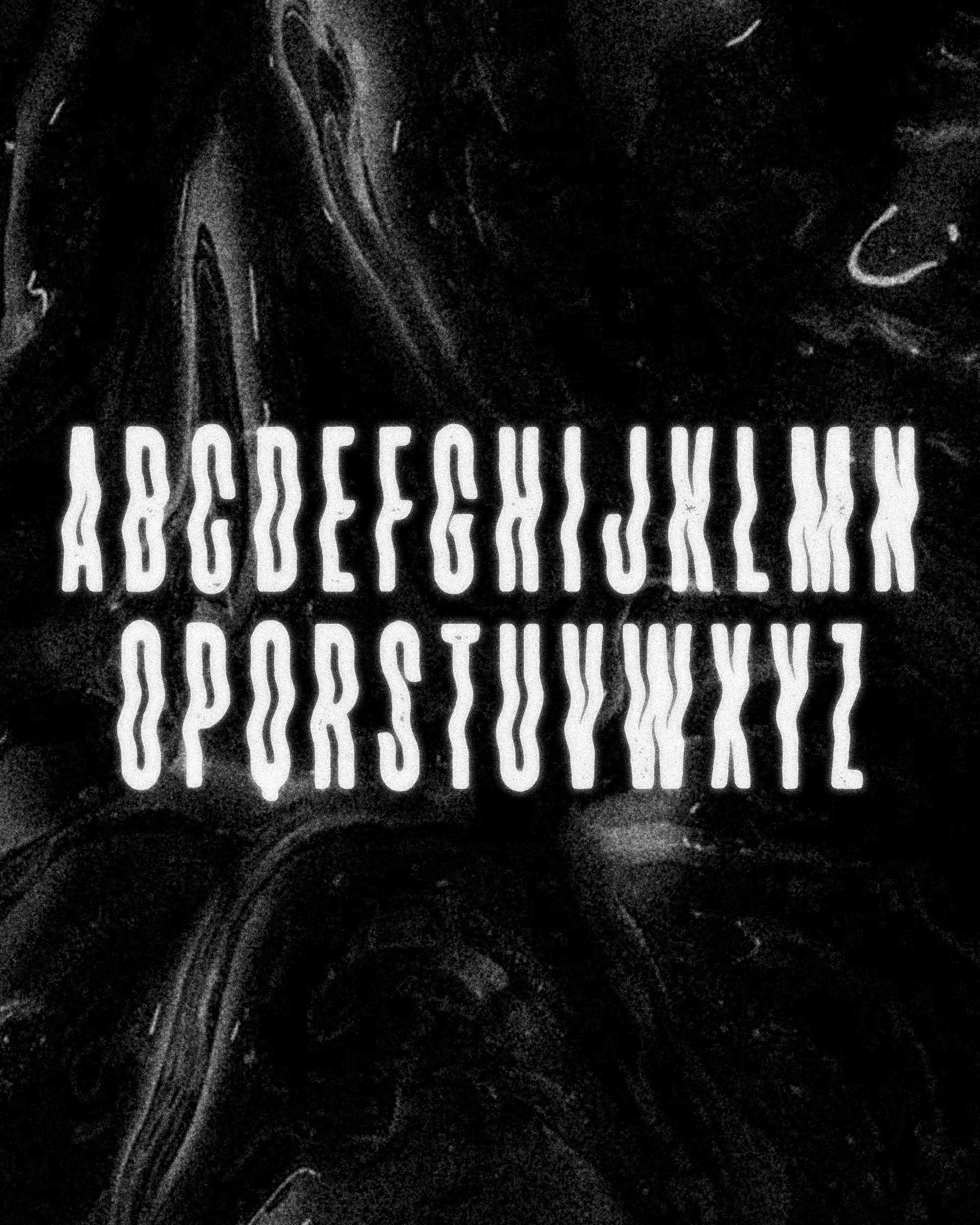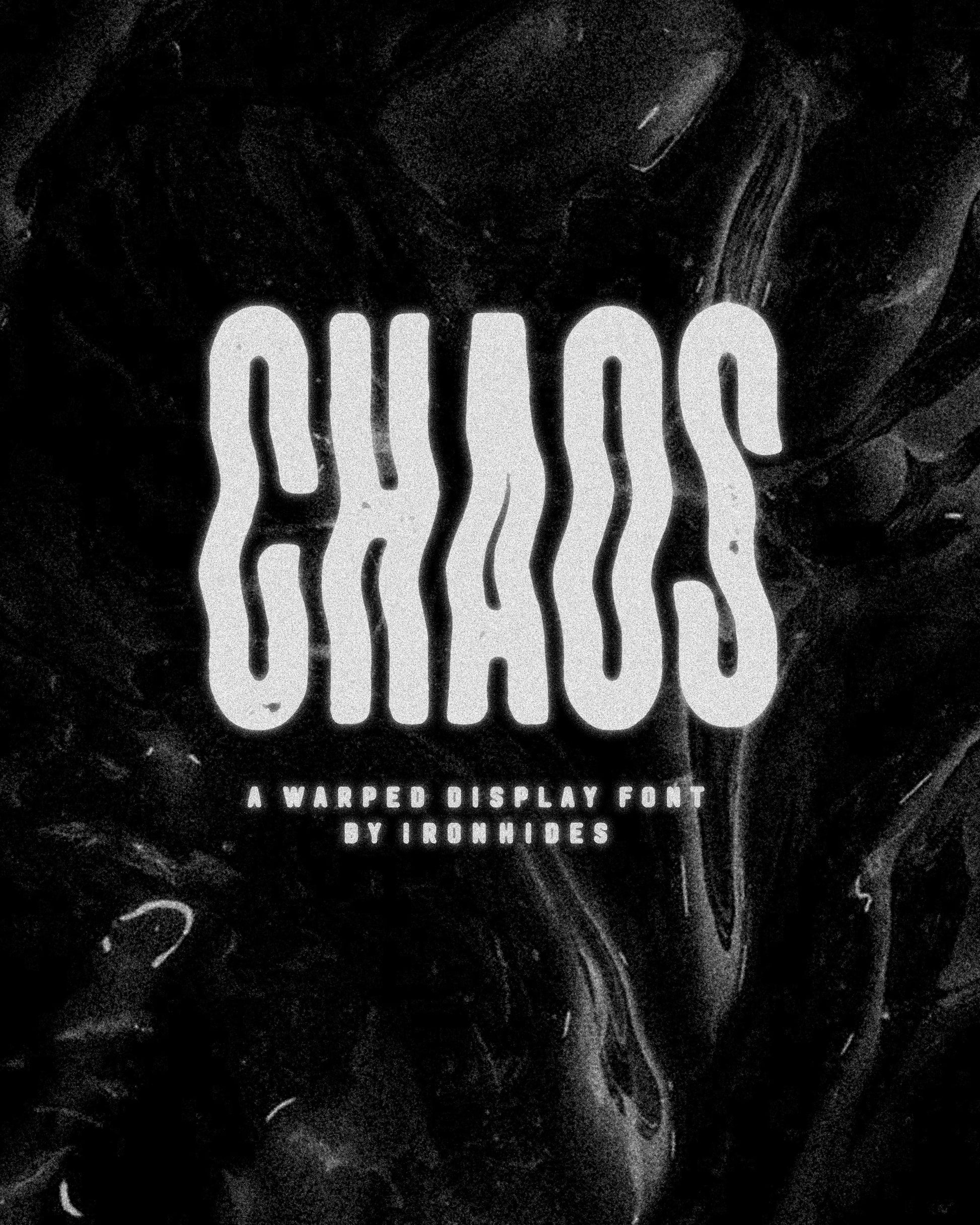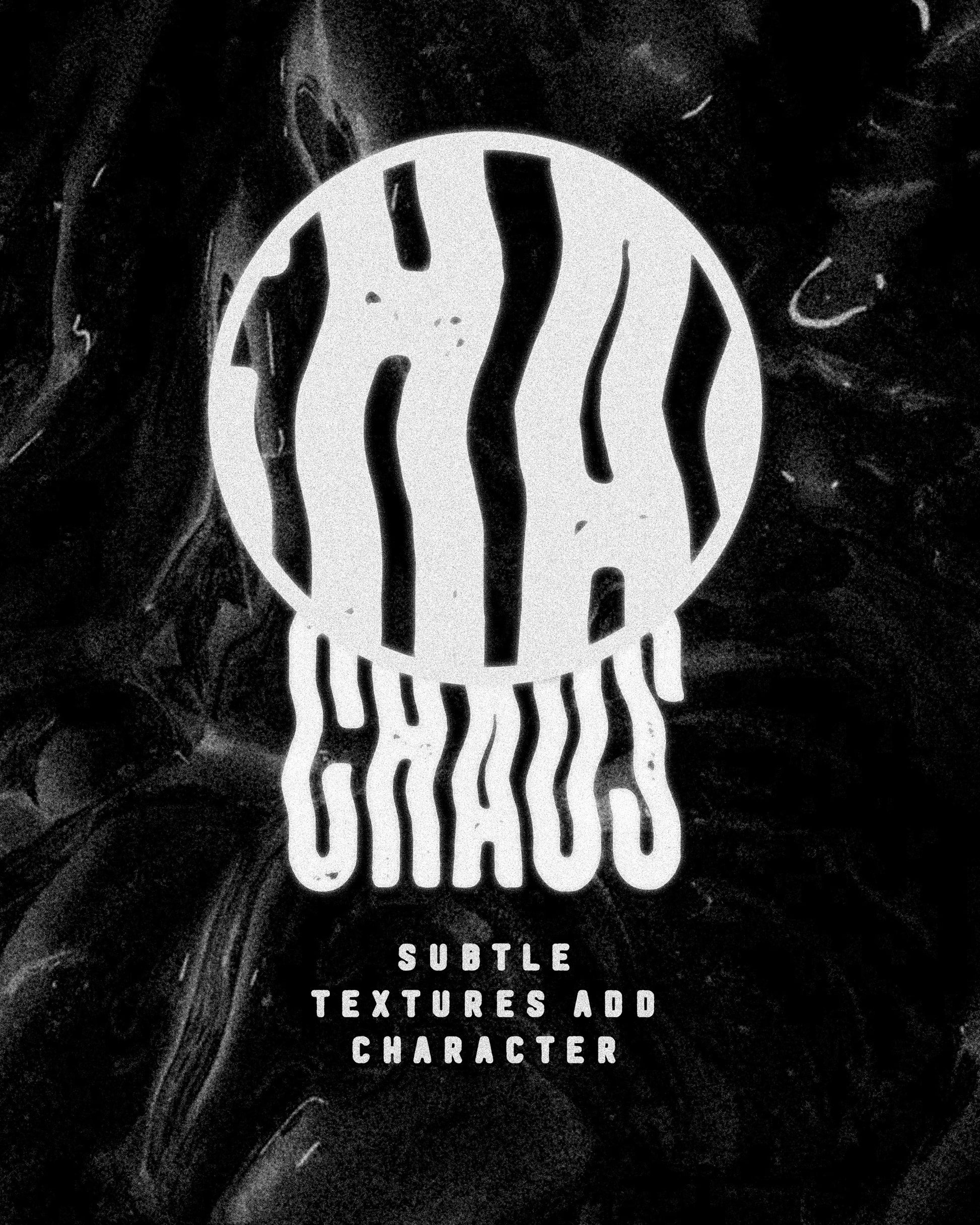
CHAOS - WARPED DISPLAY FONT
CHAOS – Warped Display Font
CHAOS is a warped display typeface designed to add movement, distortion, and tension to your typography. The stretched letterforms create a melting, unstable look that works perfectly for dark graphics, posters, band artwork, and experimental layouts.
Subtle textures and distortion give the font an organic feel while keeping the characters readable and bold at large sizes.
CHAOS works especially well for music graphics, streetwear, merch design, and alternative poster work where a clean font would feel too safe.
Perfect For
• Posters • Album artwork • Band logos • Merch graphics • Streetwear design • Dark / experimental typography • Alternative branding
CHAOS is a display font designed for large titles and graphic work rather than long body text.